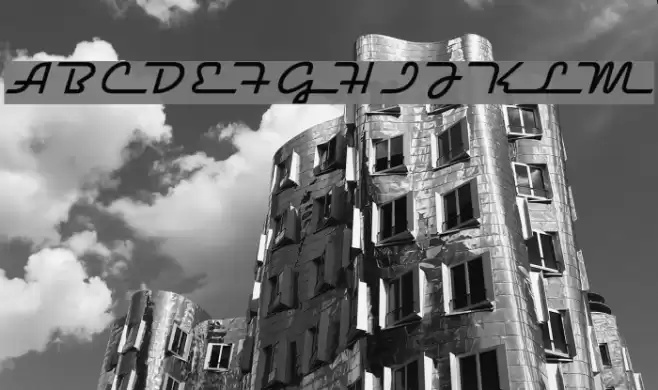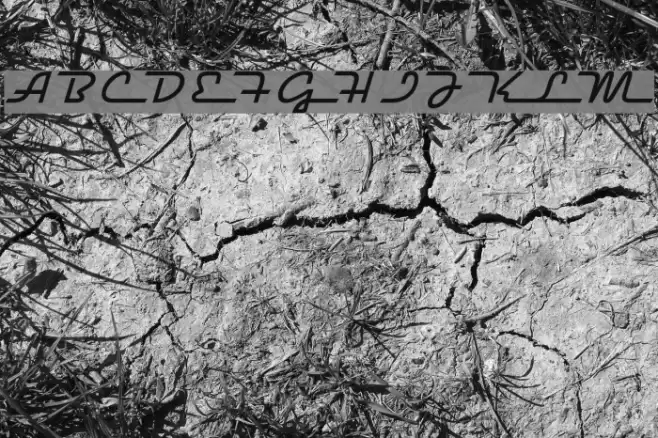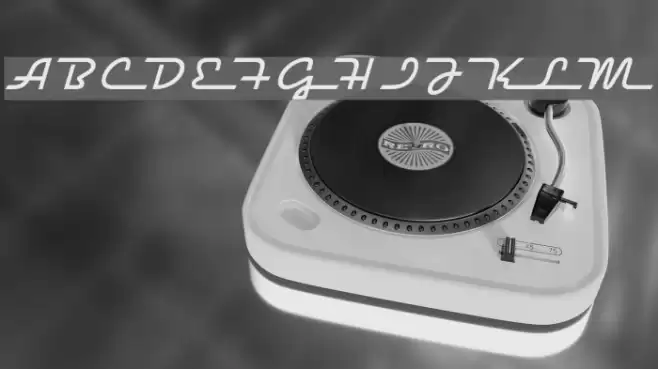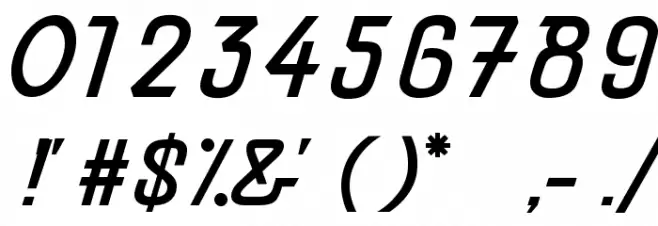
Hood Ornament Font
Hood Ornament Description
This font features a sleek, italicized script style with a modern twist. The uppercase letters are elegantly connected, giving a sense of fluidity and motion. The lowercase letters maintain a consistent slant, enhancing the cursive appearance. Numbers are bold and slightly slanted, complementing the overall style. Special characters are designed to match the flowing aesthetic, making them suitable for decorative purposes. The font's unique blend of script and modern elements makes it versatile for various design applications.
A modern, italicized script font with fluid connections and bold numerals from Cars fonts.
- Proposed Projects: Ideal for automotive branding, luxury product packaging, elegant invitations, and stylish logos.
- Use Case: Logos, Invitations, Branding